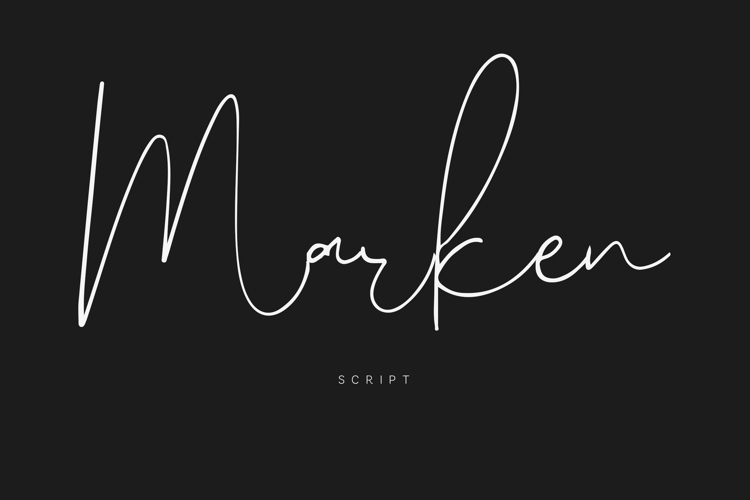
Marken Script Font | Elegant Signature Handwriting
Marken Script is an elegant handwritten signature font designed to bring sophistication, authenticity, and effortless style to creative projects. Featuring naturally flowing strokes, graceful letterforms, and a refined handwritten appearance, Marken Script captures the beauty of modern calligraphy while maintaining excellent readability.
Perfect for luxury branding, logo design, packaging, wedding stationery, social media graphics, photography watermarks, editorial layouts, beauty brands, boutique businesses, invitations, websites, and premium marketing materials, Marken Script adds a professional touch to every design.
Carefully crafted to feel natural and expressive, this signature typeface combines delicate handwriting aesthetics with versatile functionality, making it suitable for both digital and print applications.
• Elegant Signature Script
• Uppercase & Lowercase Characters
• Handwritten Calligraphy Style
• Smooth Natural Letterforms
• Perfect for Branding & Logo Design
Ideal for designers, entrepreneurs, content creators, photographers, agencies, and businesses seeking a refined handwritten font that communicates elegance, creativity, and timeless sophistication.